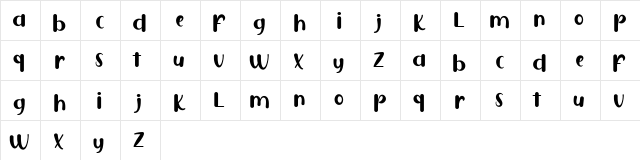
Puresity Burbon FREE Regular
Design Context for Puresity Burbon FREE Typeface
Puresity Burbon FREE is a composed and adaptable typeface that performs quietly and consistently across a wide range of design contexts.